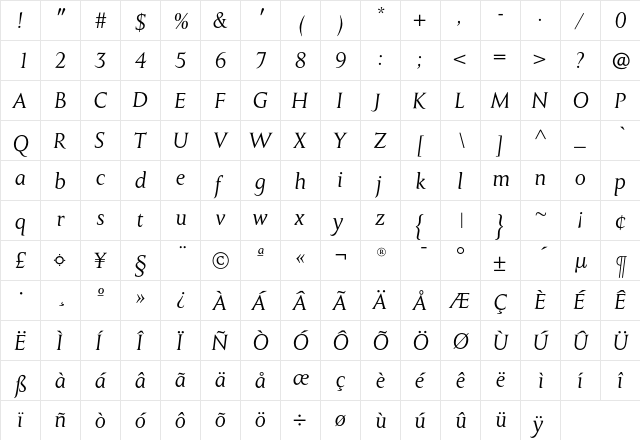
MonktonRegularItalic Regular
MonktonRegularItalic takes a measured approach to typography — its balanced proportions and neutral character make it a reliable workhorse for both digital and print work. Its italic angle brings a sense of urgency and motion to the letterforms.